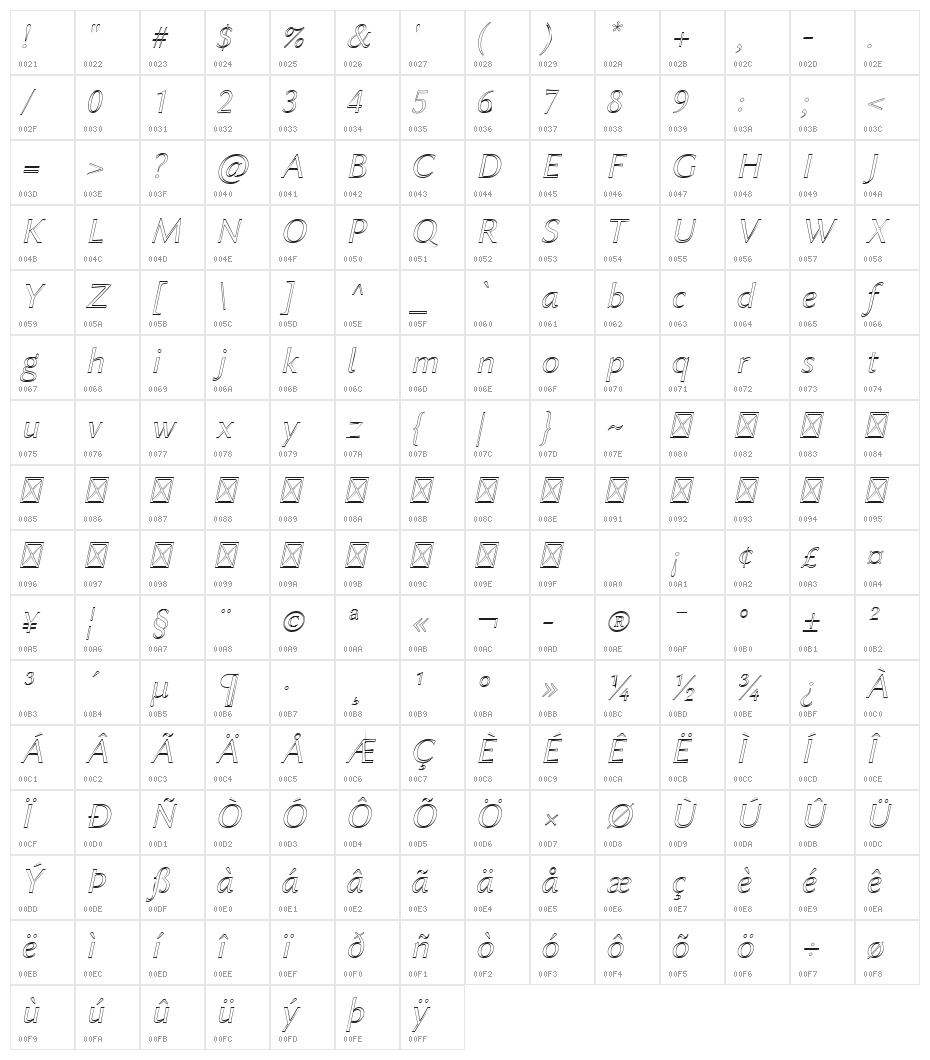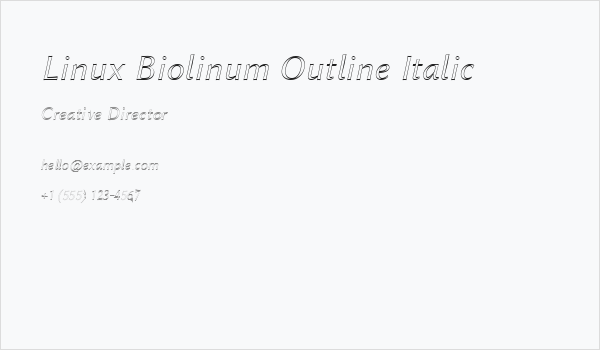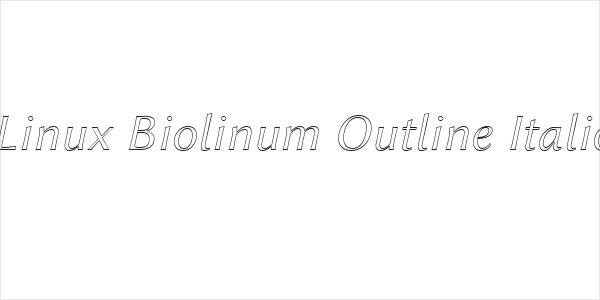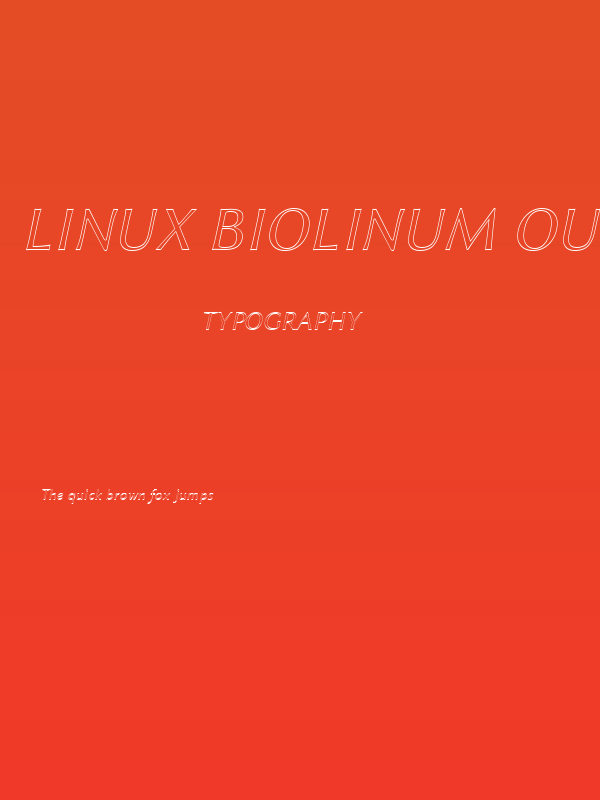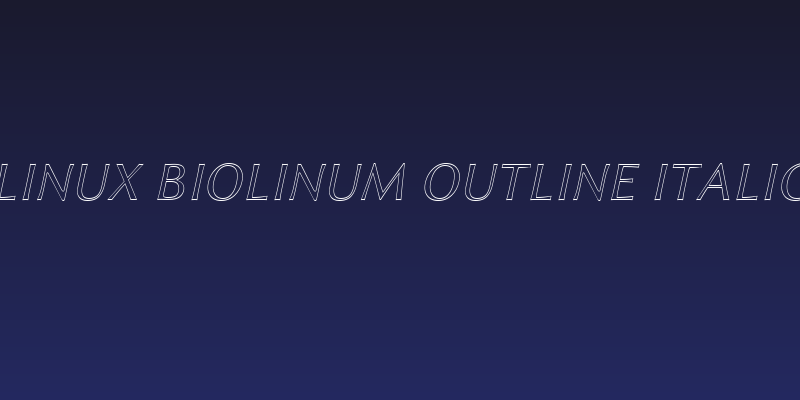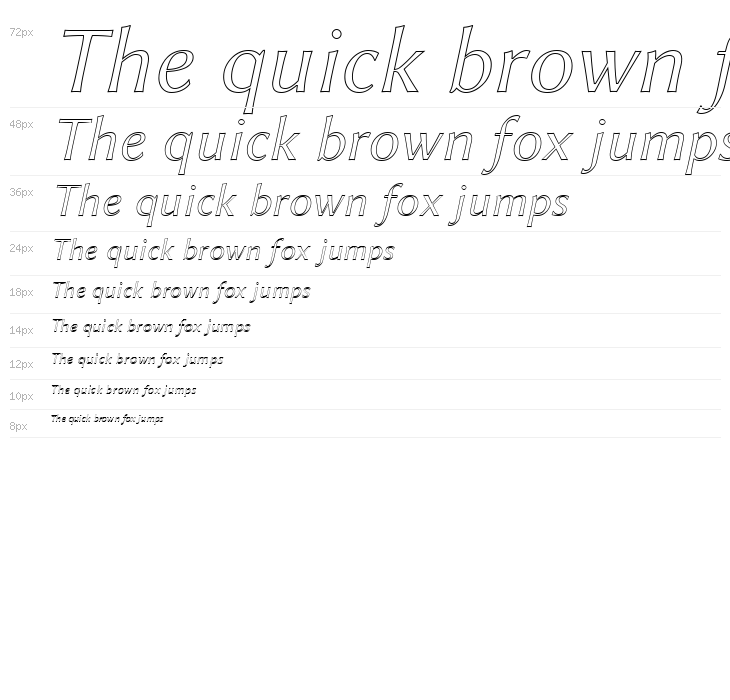
Linux Biolinum Outline Italic Font
Linux Biolinum Outline Italic Description
This font features an elegant outline style with a subtle italic slant, giving it a refined and sophisticated appearance. The characters are well-proportioned, with clean lines and a modern aesthetic. The uppercase and lowercase letters maintain a consistent style, while the numerals and special characters complement the overall design. The outline effect adds a unique touch, making it suitable for creative and artistic projects. The font's design is both versatile and distinctive, making it ideal for use in various design contexts where a touch of elegance is desired.
| Use Case | Headlines, Logos, Artistic designs |
| Proposed Projects | Ideal for creative projects, artistic designs, invitations, and branding materials. |